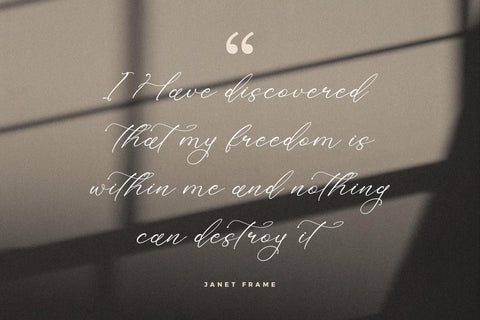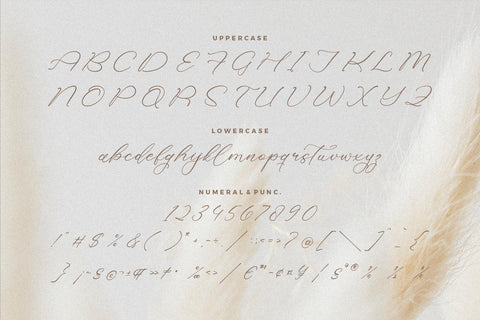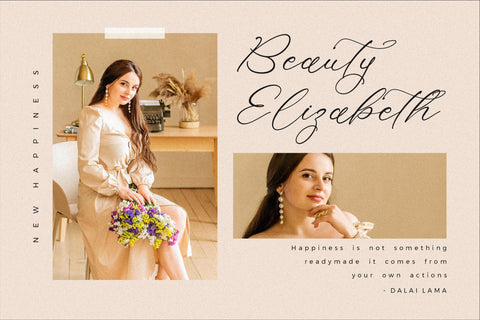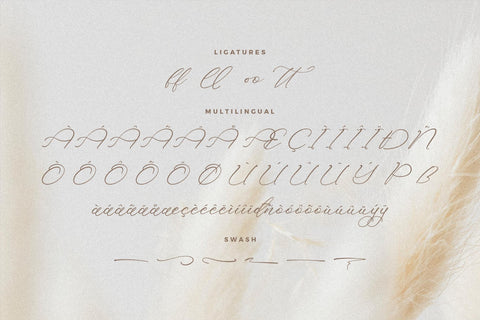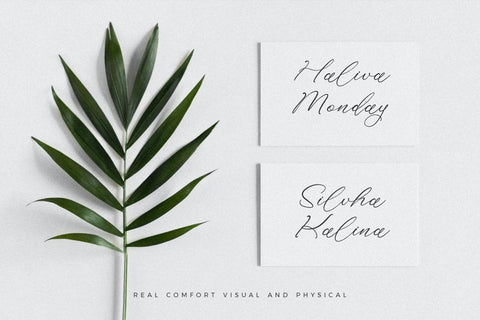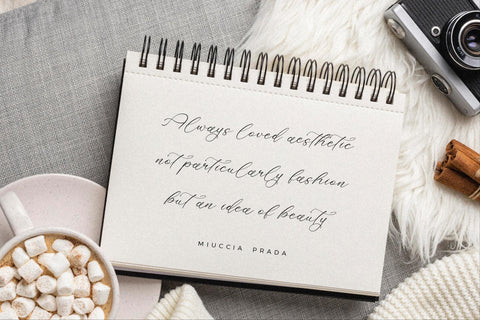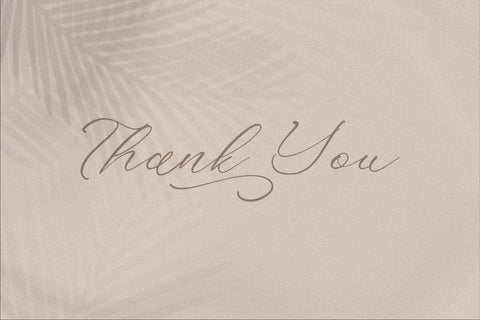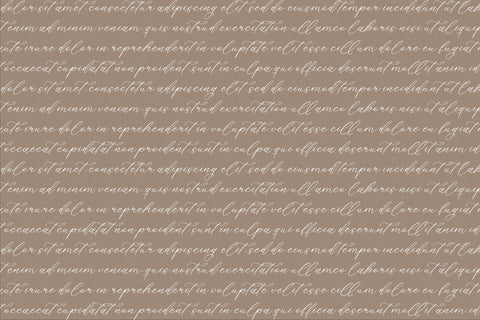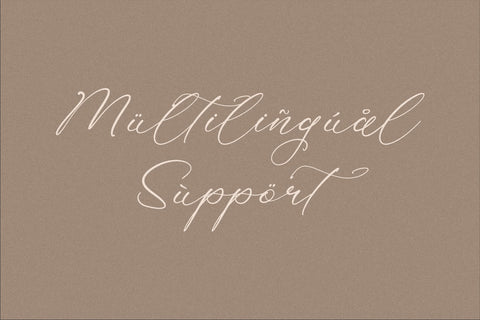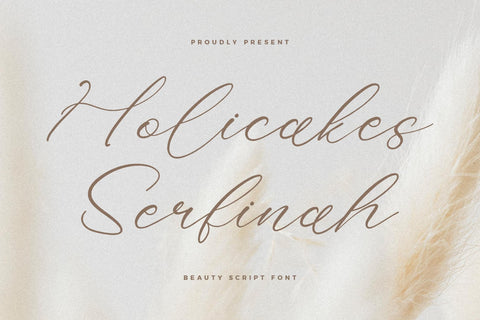
Holicakes Serfinah - Beauty Script Font
Proudly present Holicakes Serfinah - Beauty Script Font , created by Storytype,
A luxury script that has own unique style & modern look.